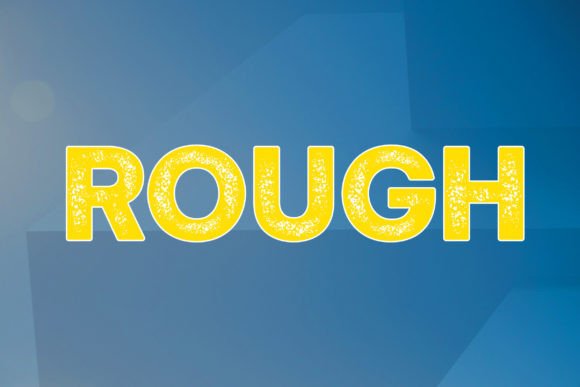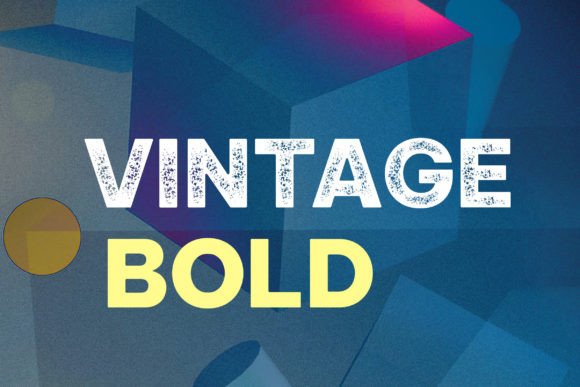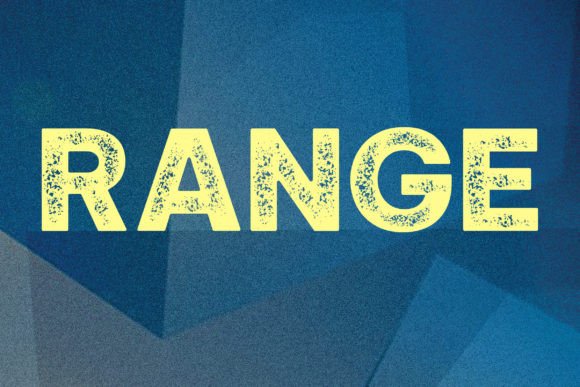
Introduction to Boxes Font
Boxes is a cool, vintage-style display font.
Use it to add that special retro touch to any design idea Add to your most creative ideas and create stunning designs with it.
Boxes Font offers exceptional quality and versatility, making it a valuable addition to your design toolkit. Whether you’re creating for personal projects or commercial use, Boxes Font delivers professional results.